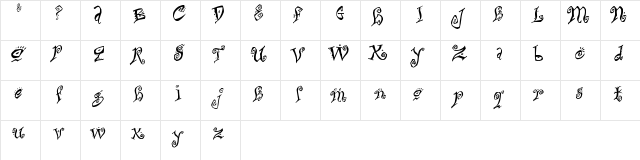
Bitchin Regular
Design Context for Bitchin Typeface
Bitchin is a composed and adaptable typeface that performs quietly and consistently across a wide range of design contexts.